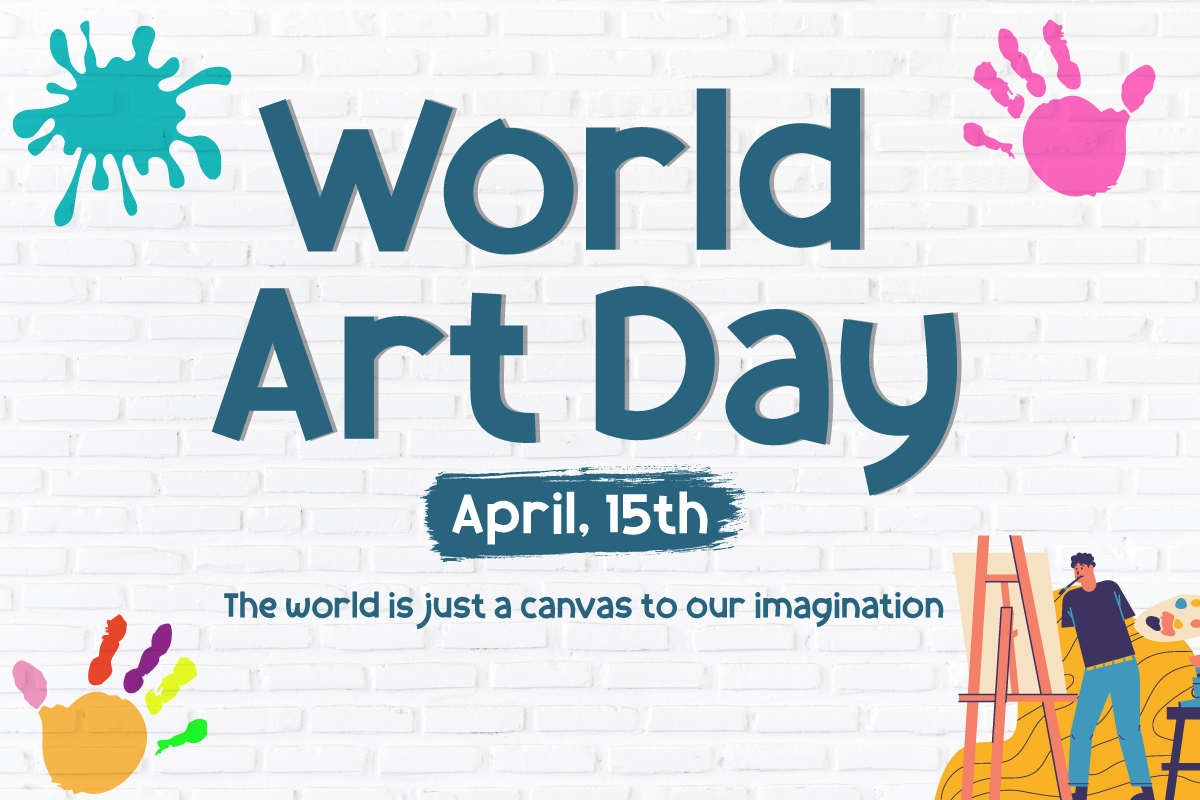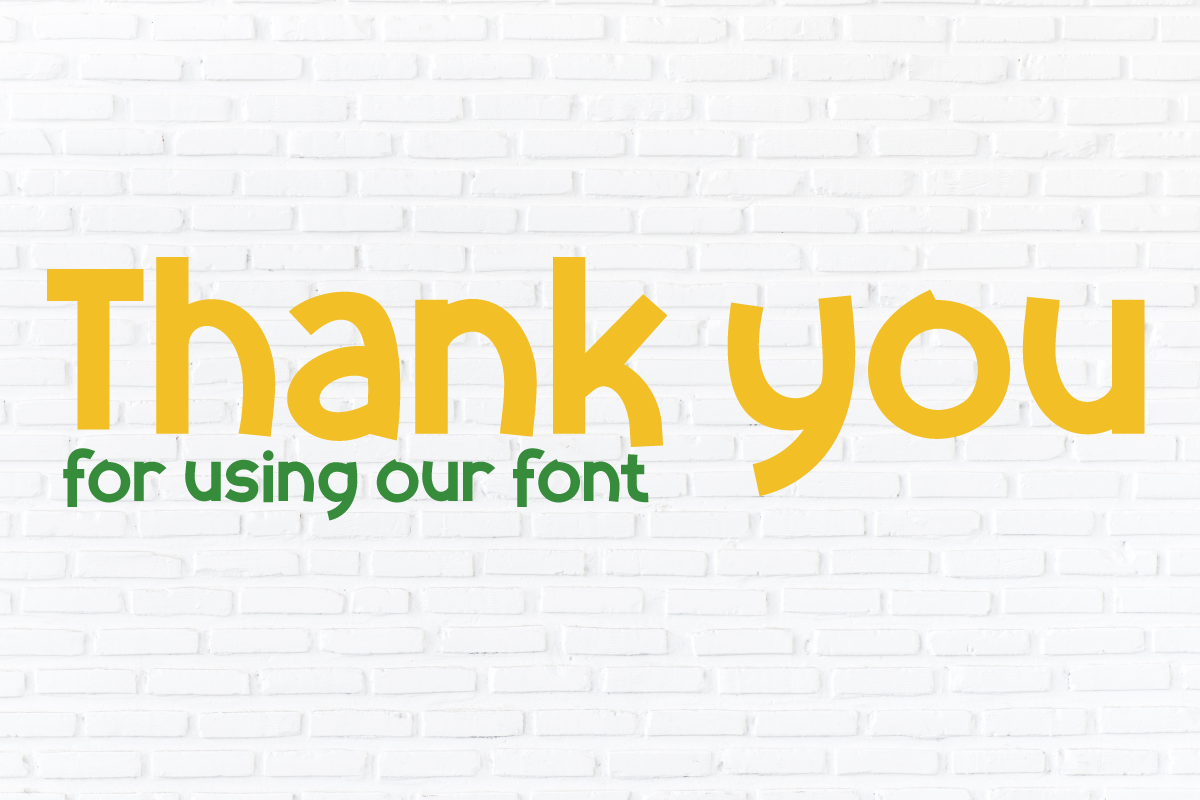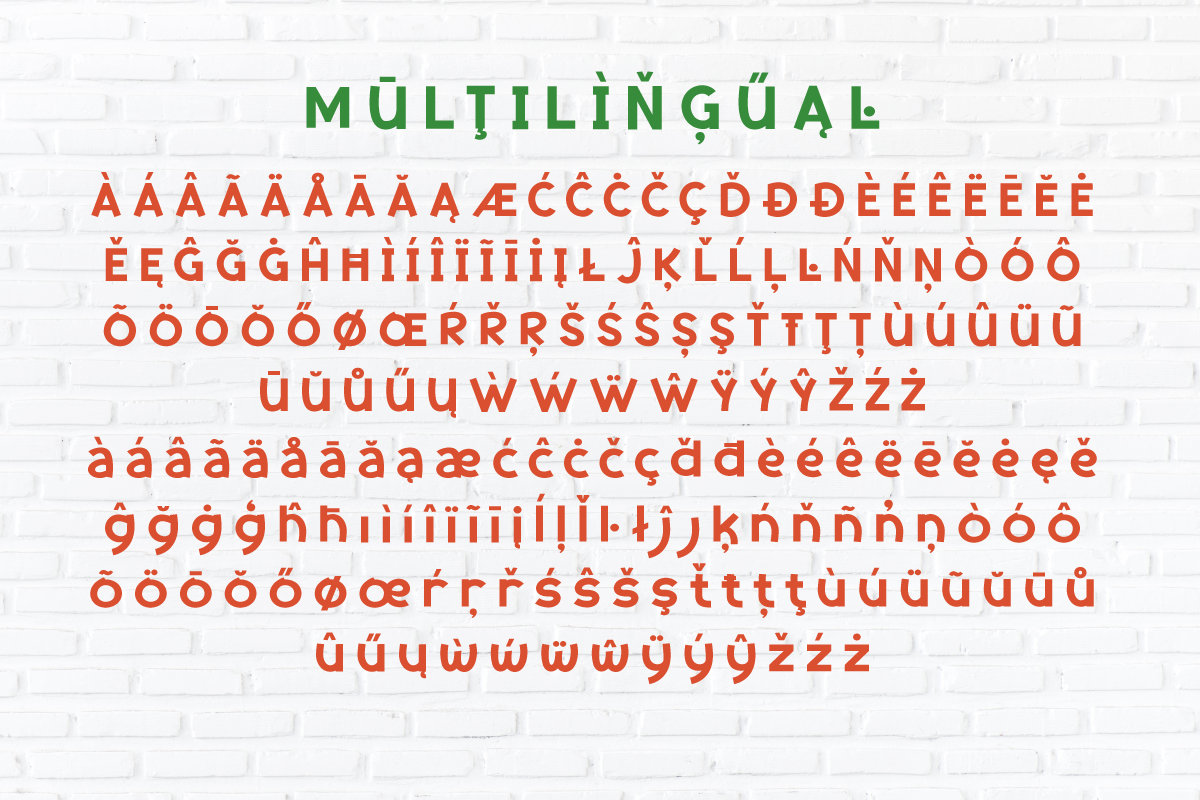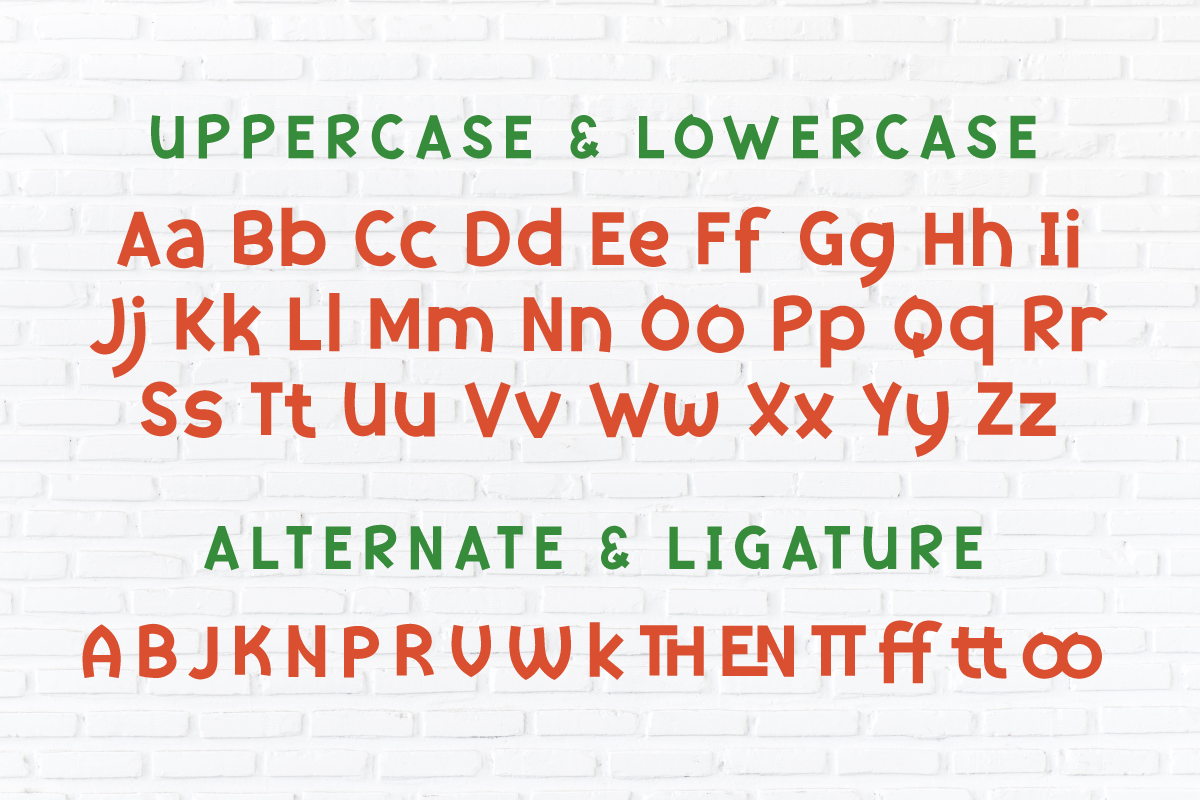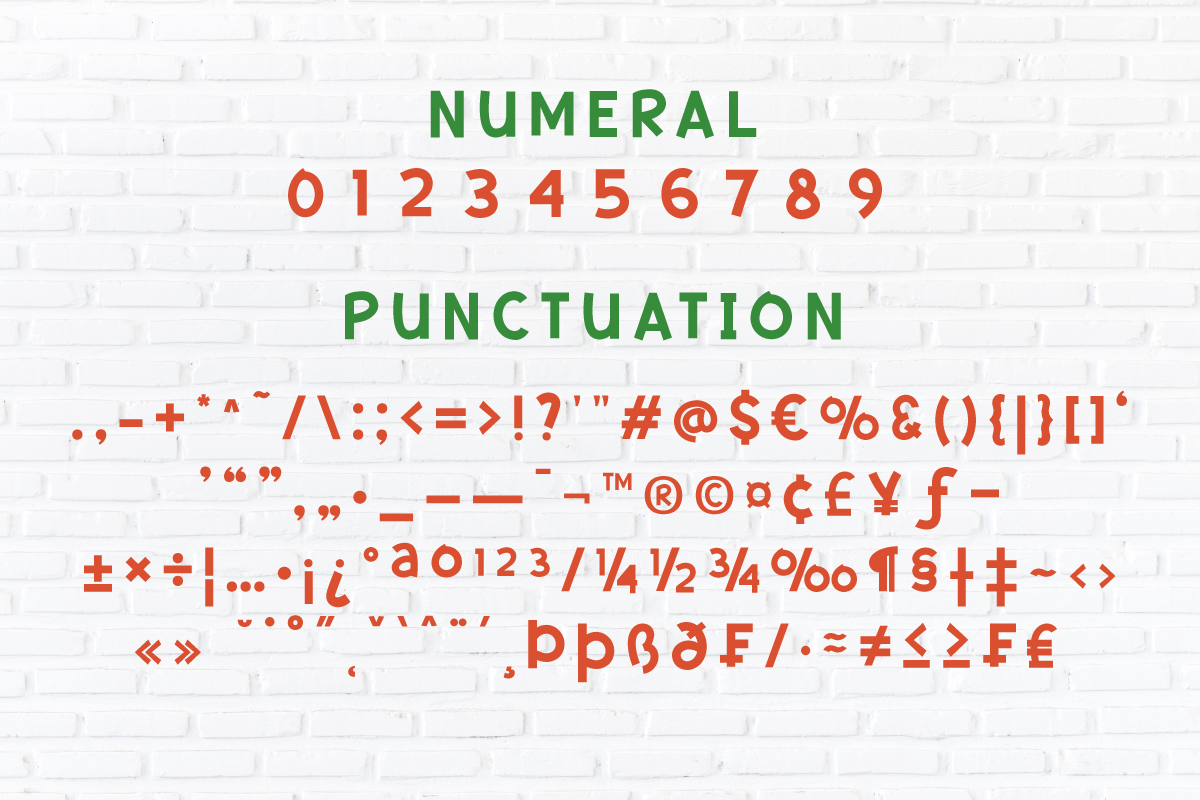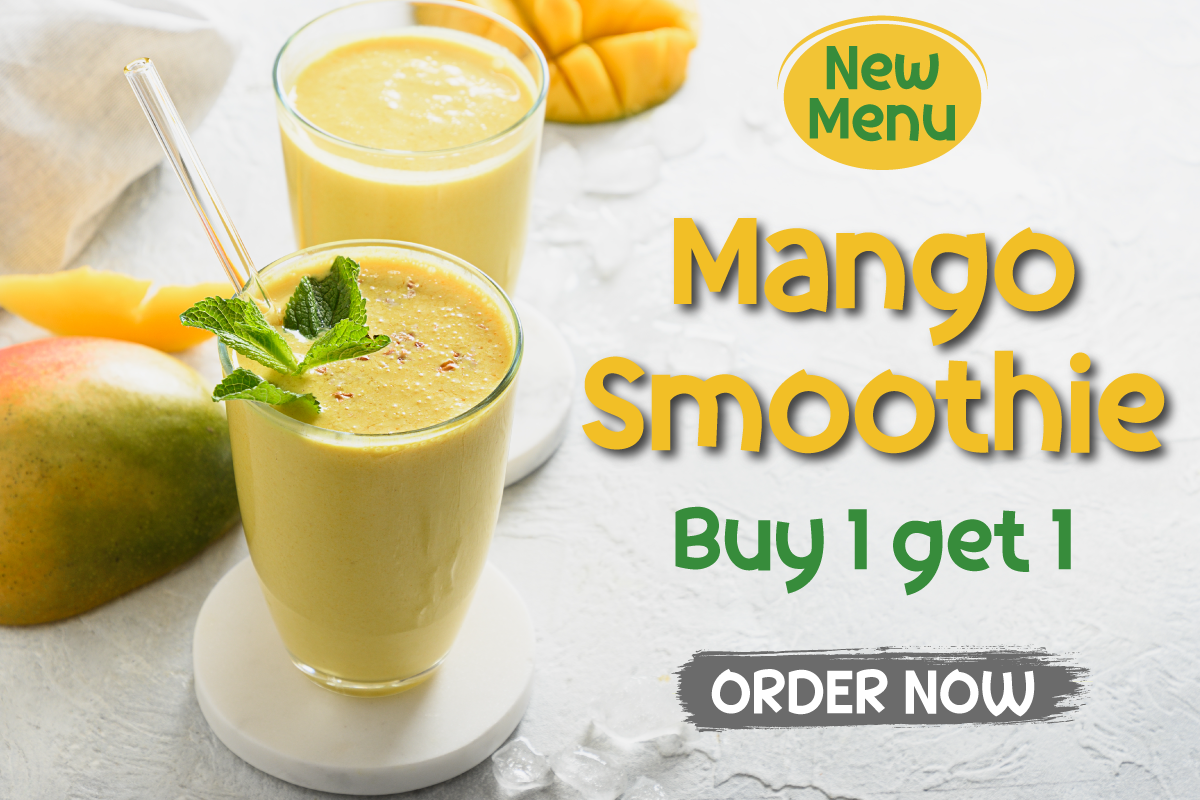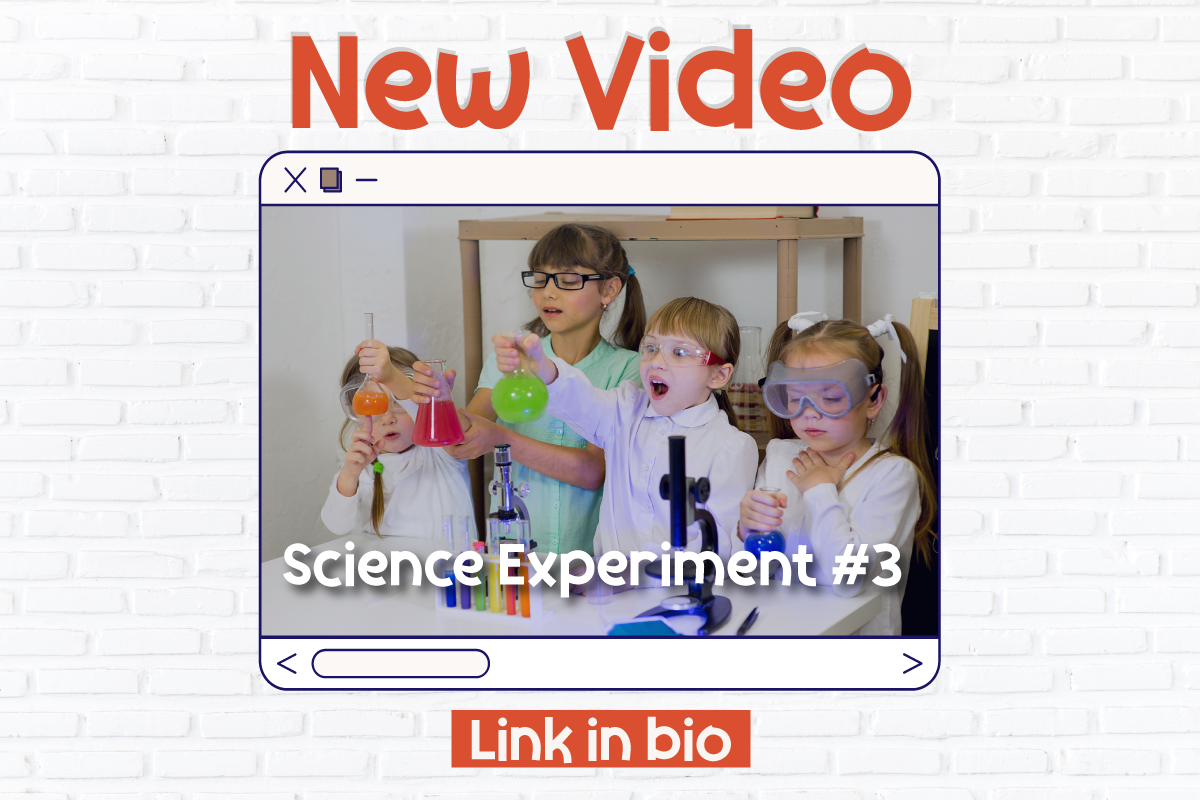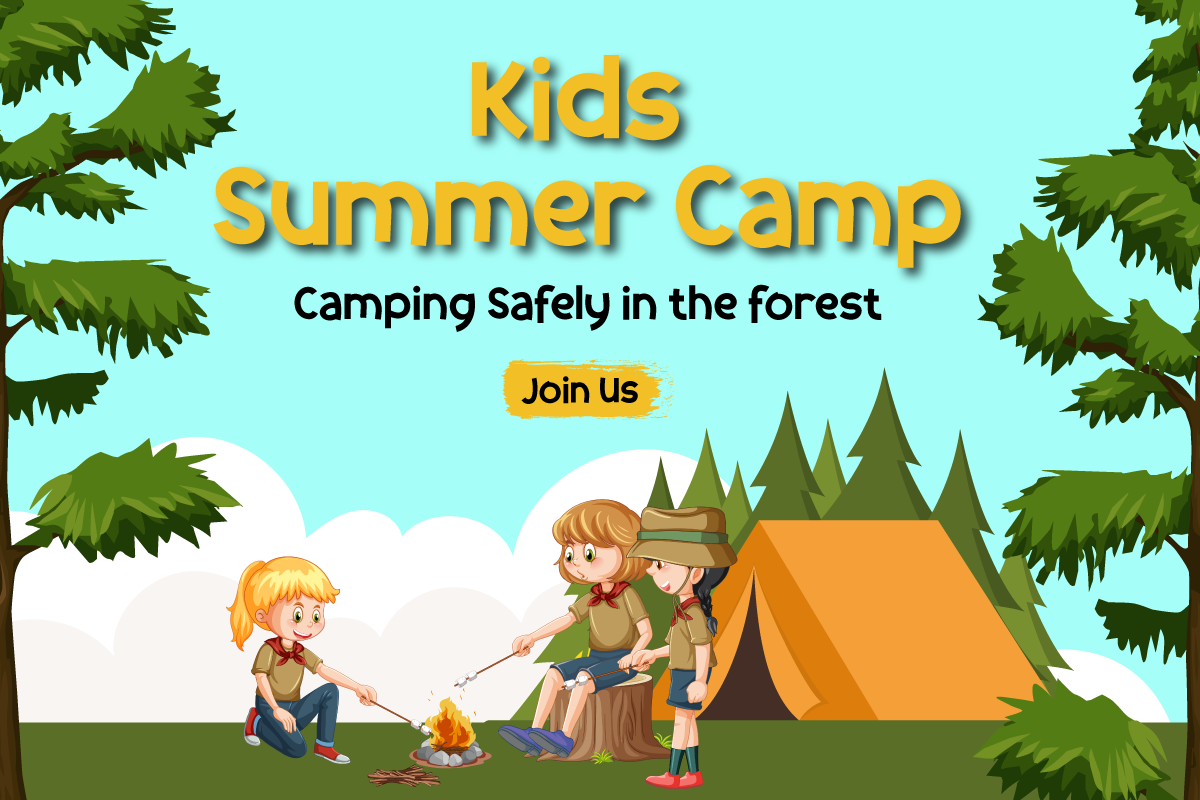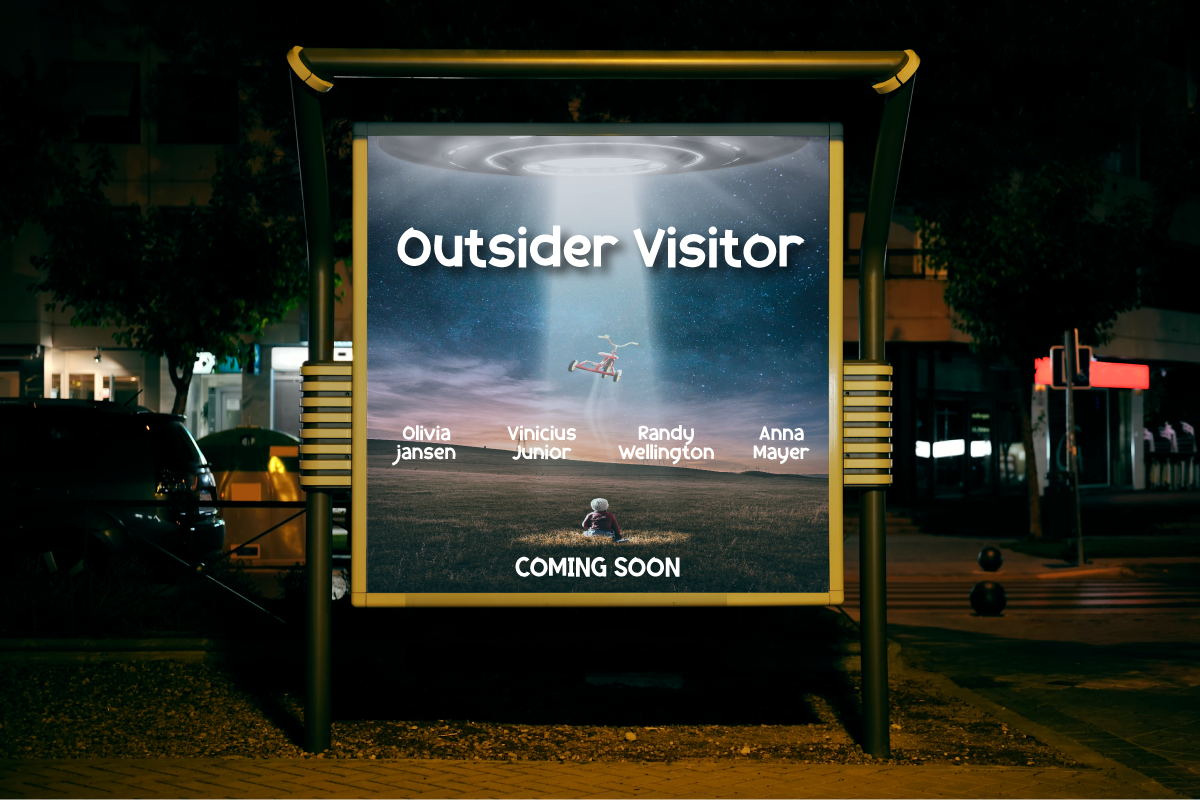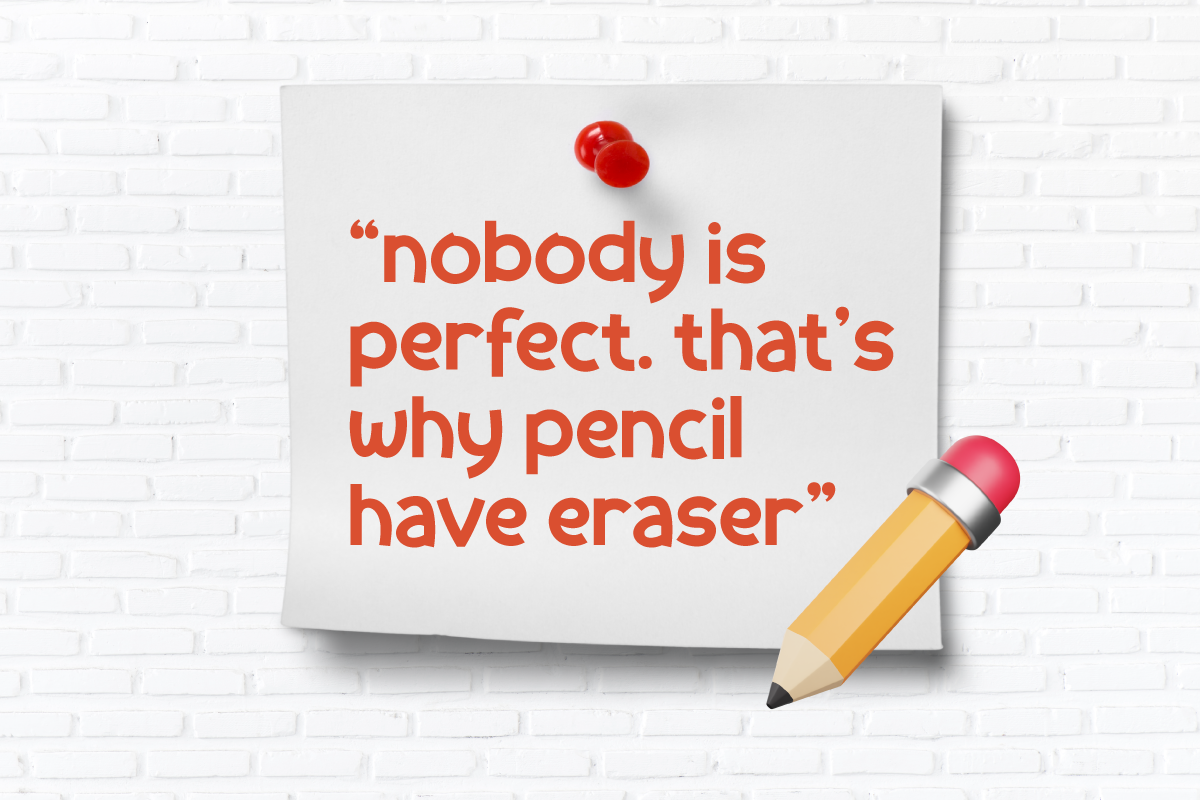
Khakoy | Display Playful Font
Introducing "Khakoy Font" - Unleash Playful Creativity!
Dive into a world of limitless imagination with Khakoy Font, your ultimate tool for injecting a playful spirit into your designs.
Khakoy Font is the embodiment of joy and whimsy in typography. Crafted to spark delight, it's your go-to choice for projects that demand a dash of fun and a pinch of mischief.
With its lively and distinct characters, Khakoy Font invites you to explore the playful side of design. It's a font that ensures your message is conveyed with a contagious sense of playfulness, captivating your audience instantly.
Designed to ignite creativity, Khakoy Font adds a touch of amusement to your projects. From cheerful posters to charming children's books, this font is your partner in crafting designs that leave a lasting, joyful impression.
Let your designs break free from the ordinary and embrace the vibrant spirit of Khakoy Font. Elevate your creative game, infuse humor and light-heartedness into your work, and watch your designs come alive with this delightful typeface. Discover the magic of Khakoy Font today!
- Alternate, Ligature